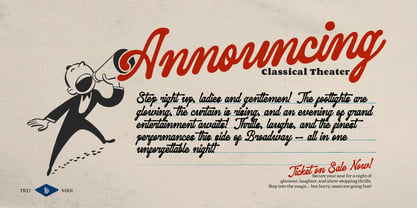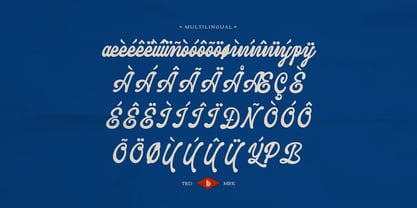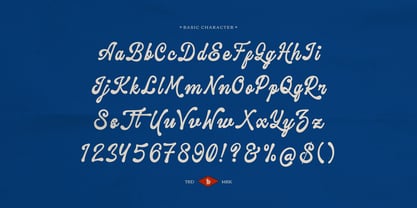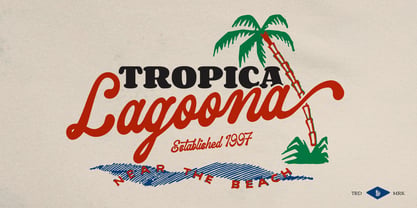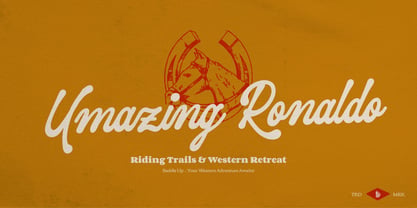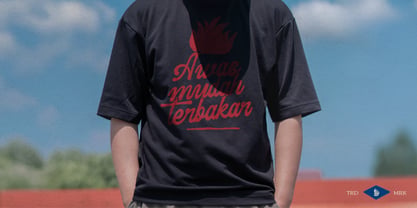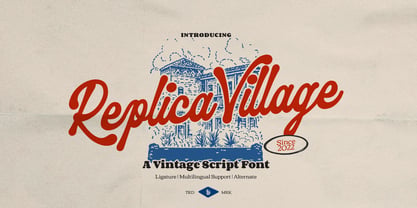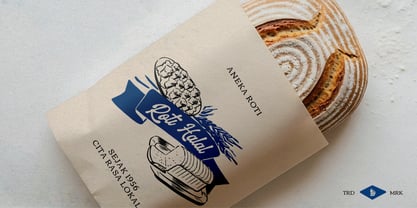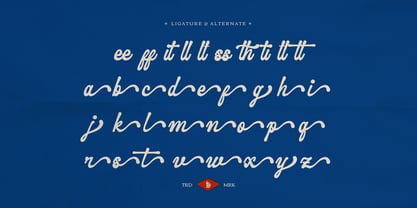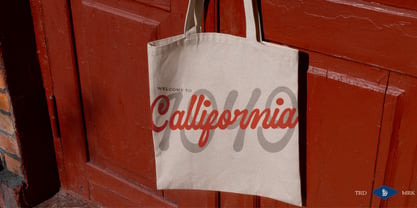
Replica Village
by Denustudio
The Replica Village Font Family was designed by Dede Nugraha and published by Denustudio. Replica Village contains 2 styles and family package options. More about this family
Replica Village | Vintage Script Font, from Denustudios, suitable for any projects such as: logos, branding projects, homeware designs, product packaging, mugs, quotes, posters, shopping bags, t-shirts, book covers, name card, invitation cards, greeting cards, label, photography, watermark, special events, and all your other lovely projects that need Vintage Script Font a taste.
Designers: Dede Nugraha
Foundry: Denustudio